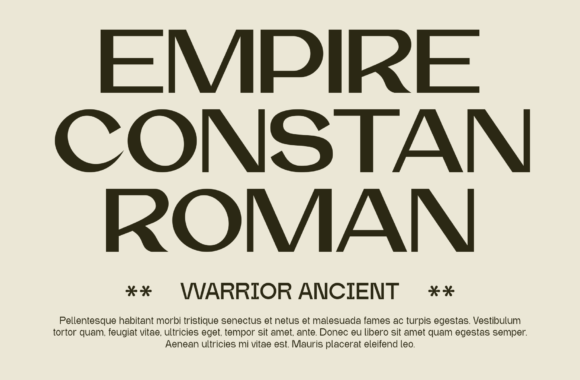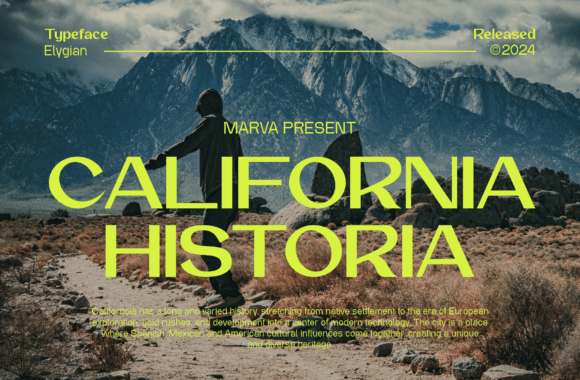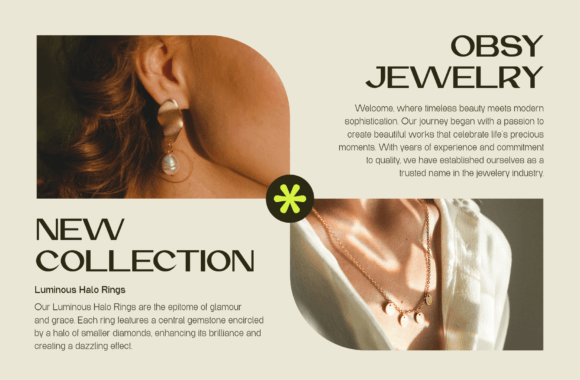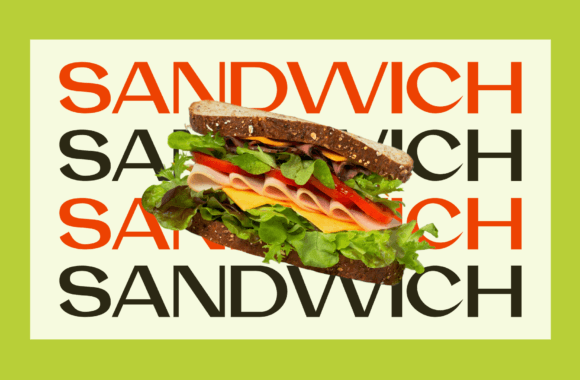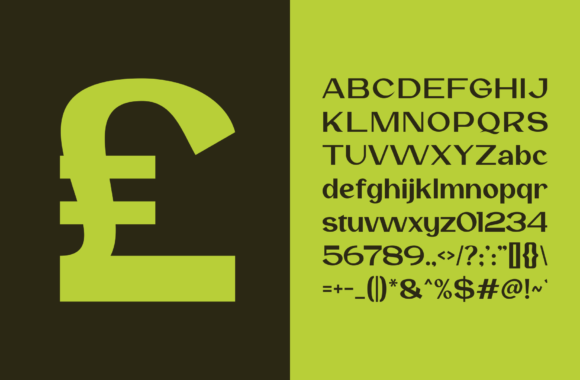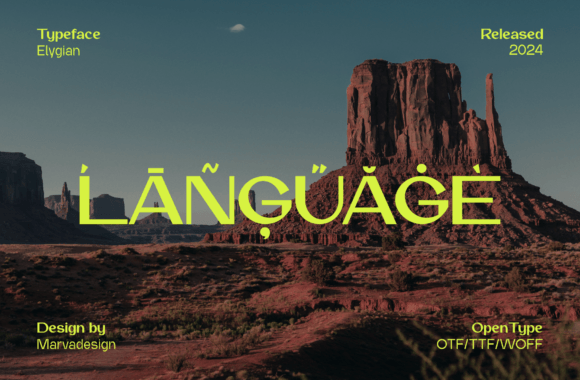
Introducing Elygian: The Elegant Sans Serif Font for Modern Design
In the world of typography, fonts play a crucial role in conveying messages, expressing emotions, and creating visual identities. For designers and crafters, finding the perfect font can be a daunting task, especially when it comes to balancing elegance, modernity, and versatility. This is where Elygian comes in – a stunning sans serif font that combines the best of both worlds to create a truly unique and captivating visual experience.
The Birth of Elygian
Elygian is a font designed with a keen eye for detail and a deep understanding of the needs of modern designers. Its elegant sans serif style is the result of a meticulous process that involved experimenting with different shapes, lines, and proportions. The goal was to create a font that exudes sophistication, simplicity, and refinement, making it perfect for a wide range of design applications.
Key Features of Elygian
So, what makes Elygian stand out from the crowd? Here are some of its key features:
- Clean and Neat Design: Elygian boasts a clean and neat design that is both visually appealing and highly legible. Its firm lines and minimalist shapes ensure that your text is easy to read, even at small sizes.
- Elegant Sans Serif Style: The font’s elegant sans serif style gives it a sophisticated and modern look that is perfect for designs that require a touch of luxury and refinement.
- Versatility: Elygian is an incredibly versatile font that can be used in a wide range of design contexts, from branding and editorial to invitations and digital media.
- Modern and Classic Design Elements: The font skillfully combines modern and classic design elements to create a unique visual identity that is both timeless and trendy.
Use Cases for Elygian
Elygian is an extremely versatile font that can be used in various design contexts. Here are some examples:
- Branding: Use Elygian to create a sophisticated and memorable brand identity that reflects your company’s values and personality.
- Editorial: The font’s clean and elegant design makes it perfect for use in magazines, newspapers, and other editorial projects.
- Invitations: Add a touch of luxury and refinement to your invitations with Elygian’s elegant sans serif style.
- Digital Media: Use Elygian to create stunning digital content, such as social media graphics, website headers, and more.
Tips for Using Elygian
To get the most out of Elygian, here are some tips to keep in mind:
- Experiment with Font Sizes: Elygian is highly legible at various font sizes, so don’t be afraid to experiment with different sizes to find the perfect fit for your design.
- Pair with Other Fonts: Try pairing Elygian with other fonts to create a unique visual hierarchy and add depth to your design.
- Use Bold and Italic Styles: Take advantage of Elygian’s bold and italic styles to add emphasis and create visual interest in your design.
In conclusion, Elygian is a font that truly has it all – elegance, modernity, versatility, and sophistication. Whether you’re a designer, crafter, or simply someone who appreciates beautiful typography, Elygian is definitely worth checking out. With its clean and neat design, elegant sans serif style, and wide range of use cases, this font is sure to become a staple in your design arsenal.